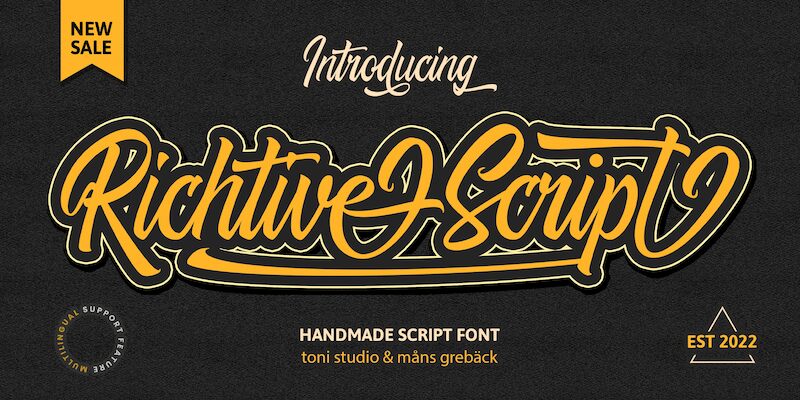
Richtive Script font is an old school script font designed by Mans Greback.
Write # < after any word to make a tail.
Example: Signed
Use underscore _ to make a swash.
Example: Super_man
Use multiple underscores for different swashes.
Example: Love______letter